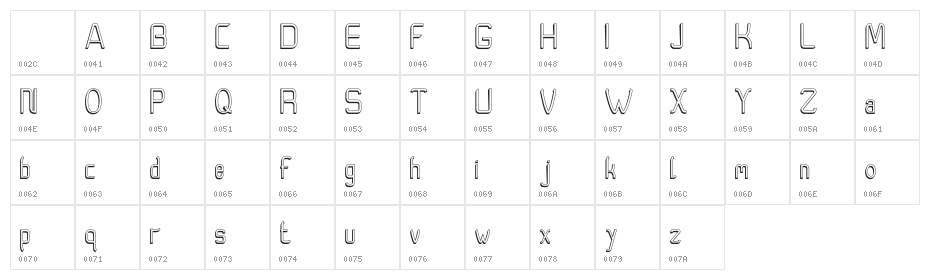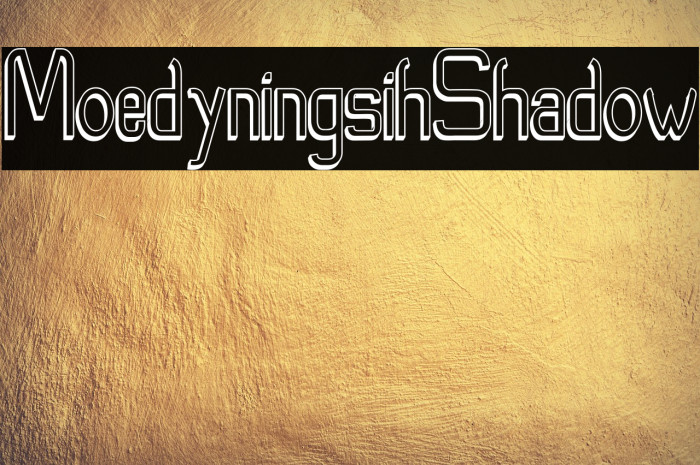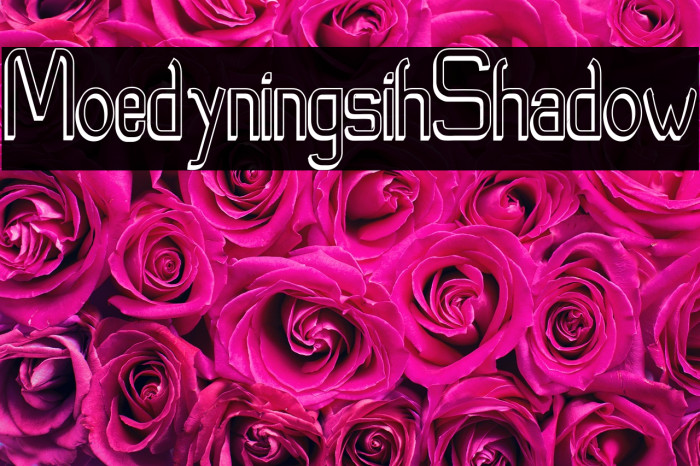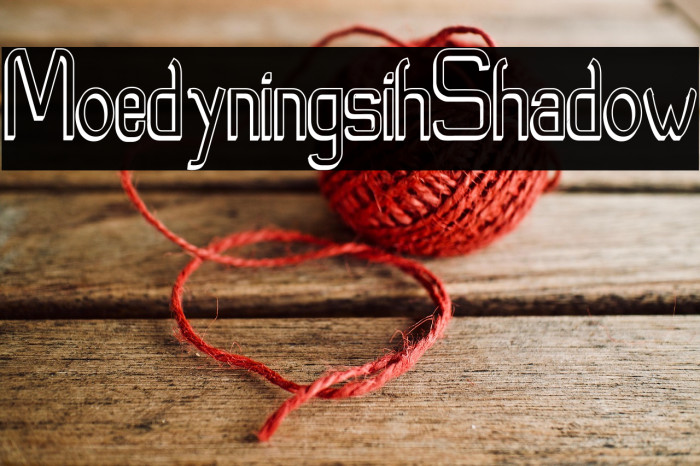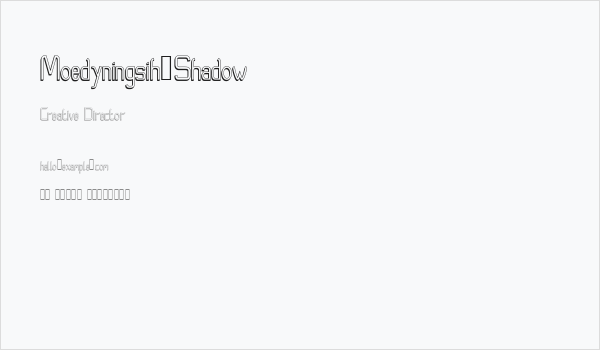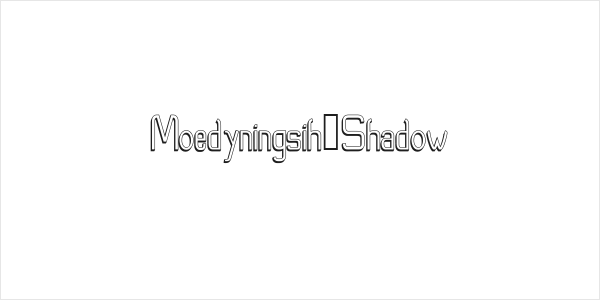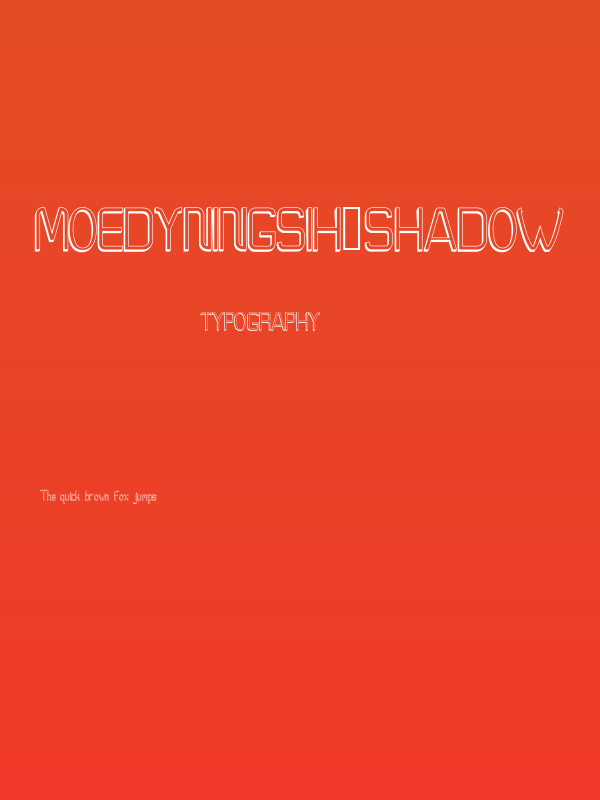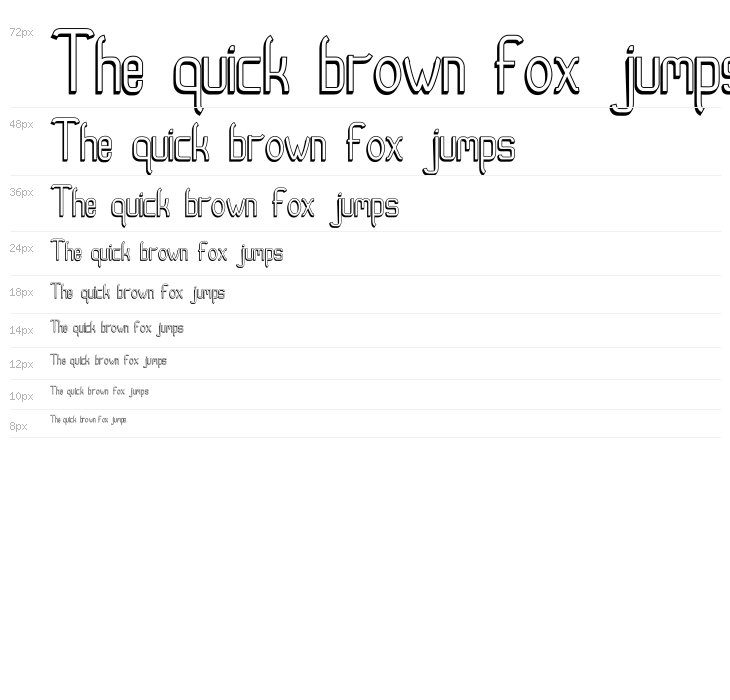
Moedyningsih_Shadow Font
Moedyningsih_Shadow Description
This font features a unique shadow effect that gives each character a three-dimensional appearance. The letters are outlined with a consistent thickness, creating a bold and striking look. The uppercase and lowercase letters maintain a geometric structure with rounded edges, adding a modern touch. The numbers and special characters follow the same design principles, ensuring uniformity across all glyphs. This font is ideal for projects that require a contemporary and eye-catching style, such as posters, headlines, and branding materials.
| Proposed Projects | Ideal for posters, headlines, branding, and any design needing a bold, modern look. |